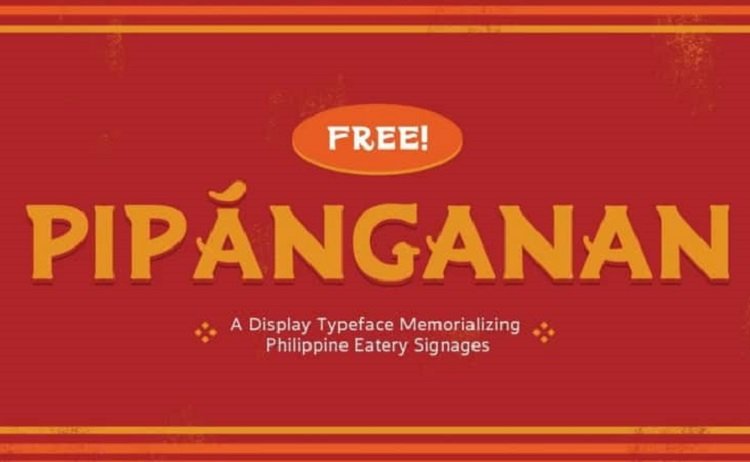
Pipánganan Display Font
Pipánganan Display Font is a flared-serif display typeface that represents clearness, contrast, and sharpness. Made from font designer named Cid Gonzales. This font is a free display typeface inspired by the signages of Philippine carinderias and other local eateries.
Bold but nurturing in nature, Pipánganan is a Kapampangan term for the place where one is eating and is a wistful gesture to the old normal — following the lead from the familiar clutter and comfort associated with our energetic carinderias.
The font includes 27 uppercase letters, including ñ, and various punctuation glyphs. Letterforms with diacritical marks are included to make the font adaptable to different Philippine languages.